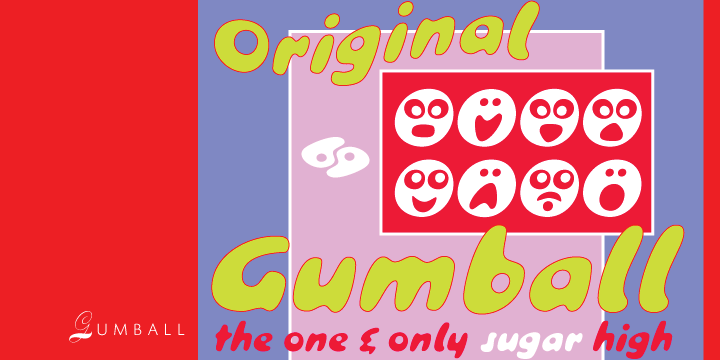
Gumball is a comic and kids font family. This typeface has two styles and was published by Canada Type.
We didn’t make this font because we thought the letters were pretty. We didn’t make this font to look cool. In fact we’re ashamed we made this font, and we wish we never had to make it. We hate this font because it tells us that a part of our past was stolen. The only reason we made this font is to let you know this disturbing piece of information: The 1990s were a sham.
Remember Raygun? Carson, Brody, Deck, Plazm, all the cool Japanese designs? Experimental this, organic that, bubble gum hither and yon? They may as well never have existed. This is the original Gumball, straight from the forgotten days of 1958. Yes, you read right. These letters were designed for the then-mighty Bauer foundry by an unknown named Richard Weber, in NINETEEN FIFTY EIGHT! The original font’s name was Papageno, presumably referencing the name of the bird catcher in Mozart’s The Magic Flute.
It was our designer’s duty to inform you of your stolen past. So we made Gumball. It is still hard for us to swallow: These letters are the typographical parallel of Khrushschev, Nixon, deGaulle, Batista, Kerouac, Capote, Levi-Strauss, Peter Gunn, Bridge on the River Kwai, Project Mercury, and three-cent stamps.
Gumball is a bubble gum font. It’s round. It’s sickly sweet. It spreads like a viscous stain of blood or honey. It’s good for things like packaging comfort food, and parodying 1990s design. Maybe if you’re very imaginative you can come up with a really good use for it and make us all feel better about a lost decade. We urge you to try. We’re feeling quite depressed about the whole thing.
We’re sorry we were the ones who had to inform you of this loss. Now we return to our scheduled font construction.